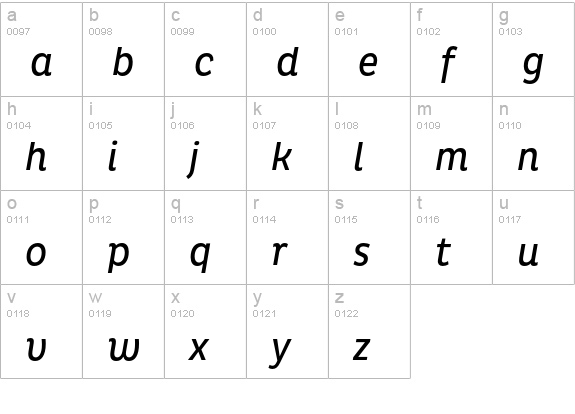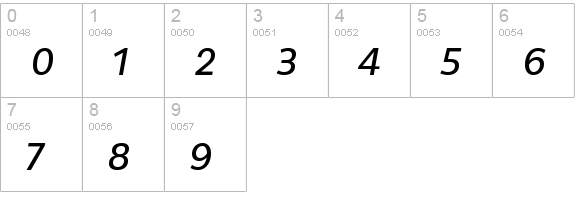
Pluto Cond Regular Italic is the standard, neutral, condensed-width, italic variant in the Pluto typeface family \xE2\x80\x94 well suited to general body text, paragraphs, and standard typographic work.
Introducing Pluto Cond Regular Italic font, a sleek and modern typeface designed to add a touch of sophistication to any project. With its clean lines and subtle curves, this font exudes elegance and professionalism. The italicized style adds a dynamic and stylish flair, making it perfect for headers, quotes, and other eye-catching elements. Best of all, Pluto Cond Regular Italic font is completely free to download at FontsMarket.com. Whether you're working on a personal project or a professional design, this versatile font is sure to elevate your work with its timeless appeal. Don't miss out on this opportunity to enhance your typography collection with this exquisite font. Download it now and let your creativity shine!